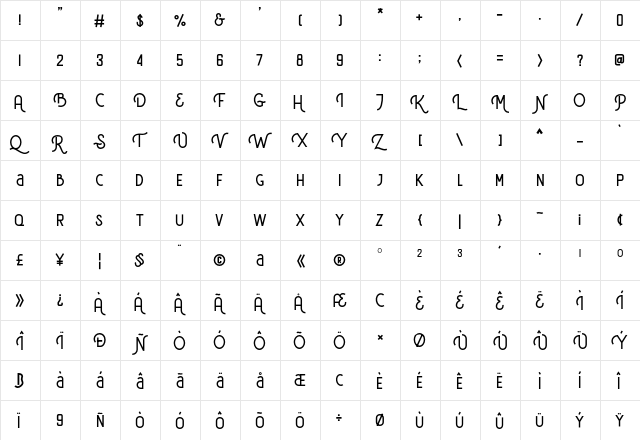
Delfina Regular
Design Context for Delfina Typeface
Delfina offers clean, dependable letterforms without strong stylistic allegiance, making it a practical choice for designers who need flexibility.